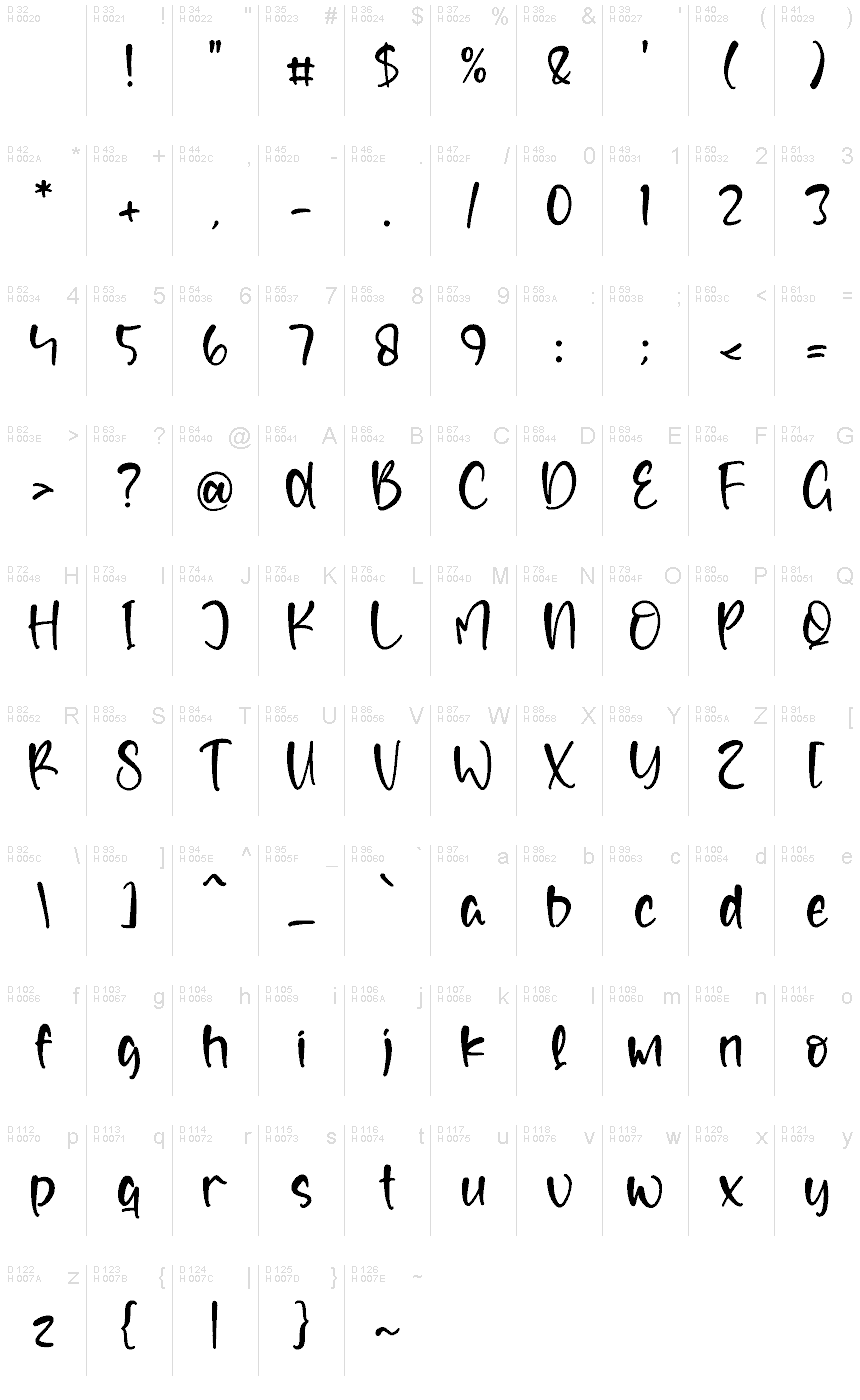
Yellow Manice
Yellow Manice font, crafted by Perspectype Studio - Letterena.com, offers a casual and expressive handwritten appearance with artistic flair. This font captures an energetic modern vibe, perfect for adding character and creativity to any project with its unique and energetic look.